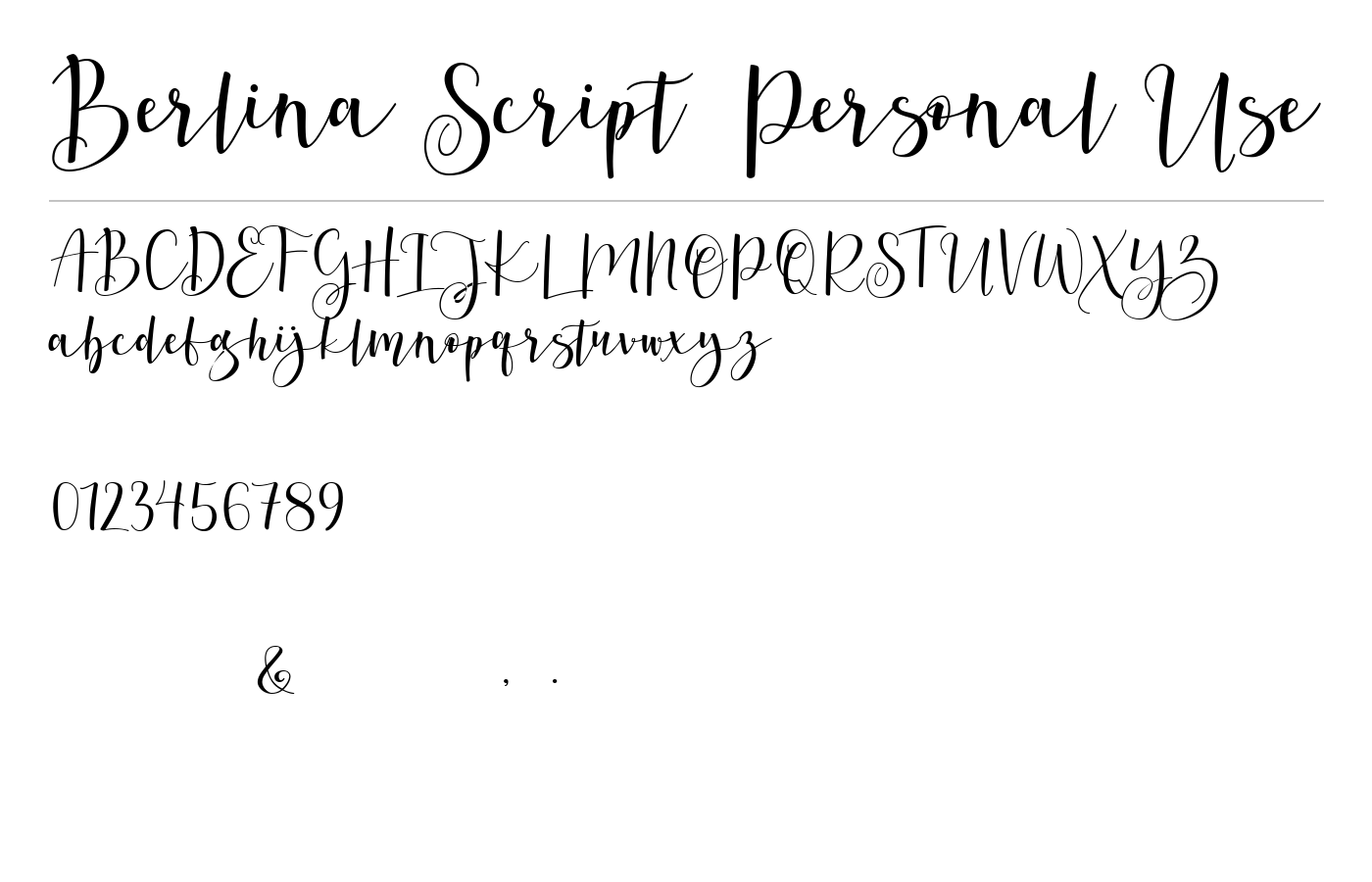
Berlina Script is a delicate and elegant handwritten script font with slender strokes and playful flourishes, giving it a light and graceful appearance. Its tall x-height and flowing, cursive letterforms make it ideal for personal projects, invitations, and branding that requires a feminine, artistic touch. This font works well in headlines and decorative text where a charming, sophisticated style is desired.
Berlina Script Personal Use Font
About Berlina Script Personal Use Font
| Designer | Abdul Azizul |